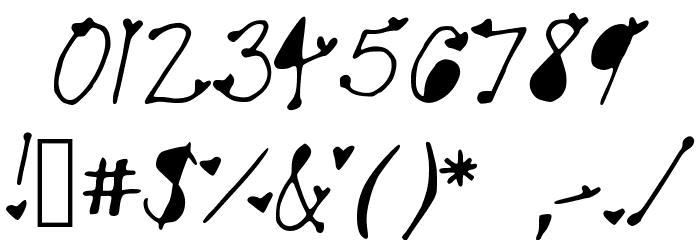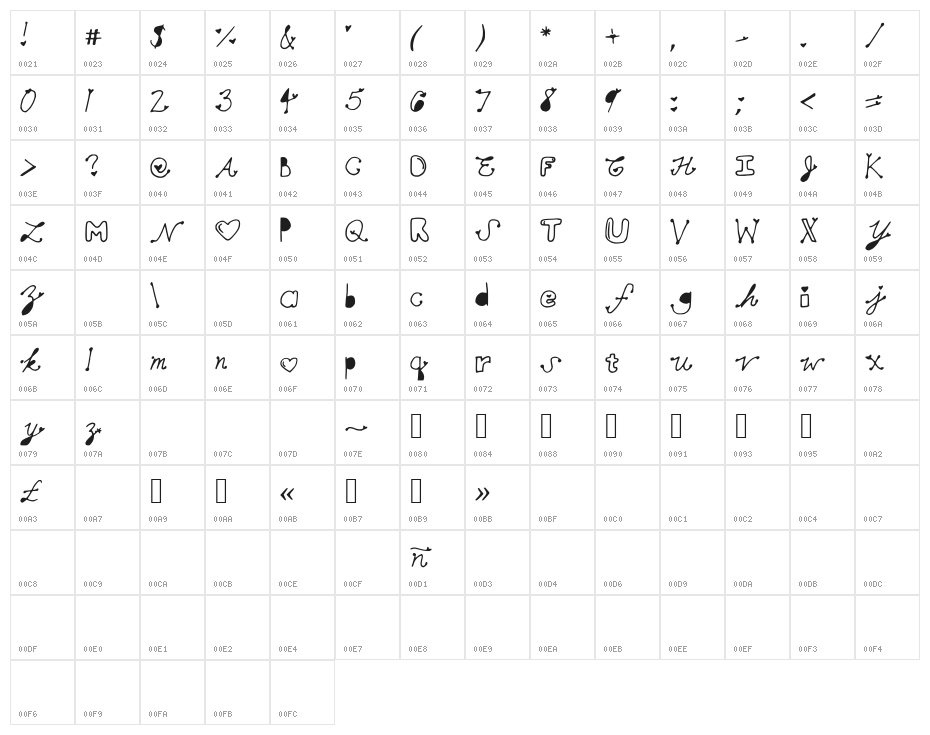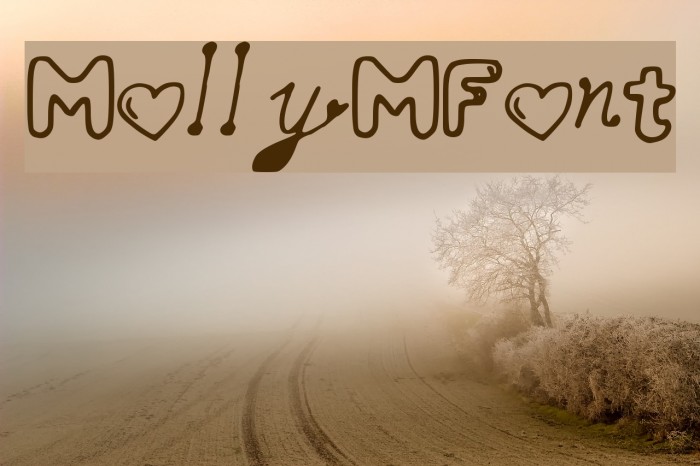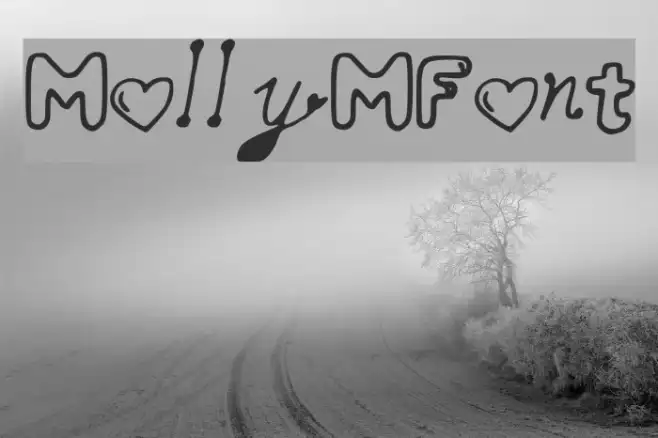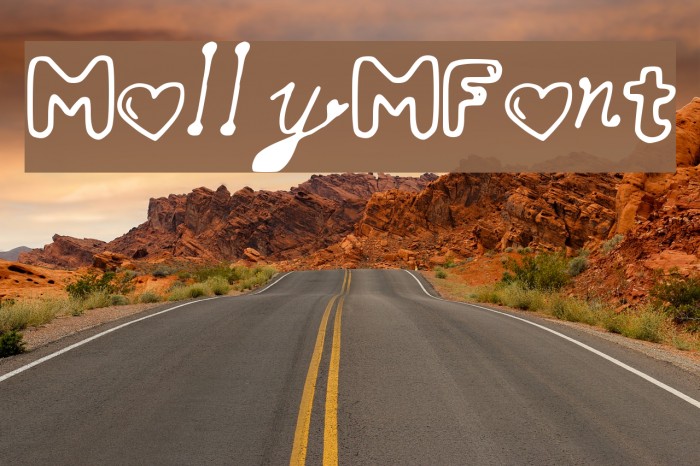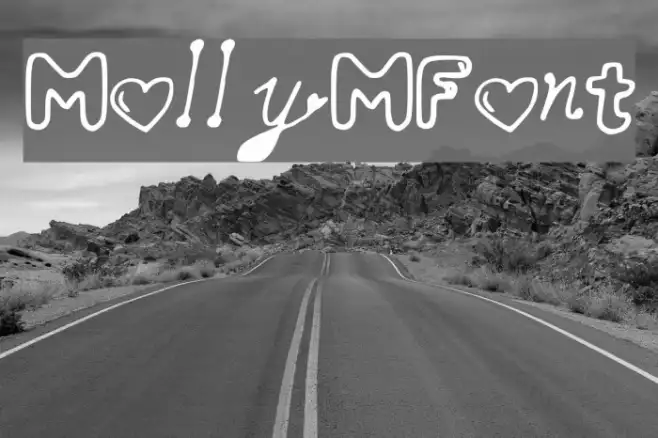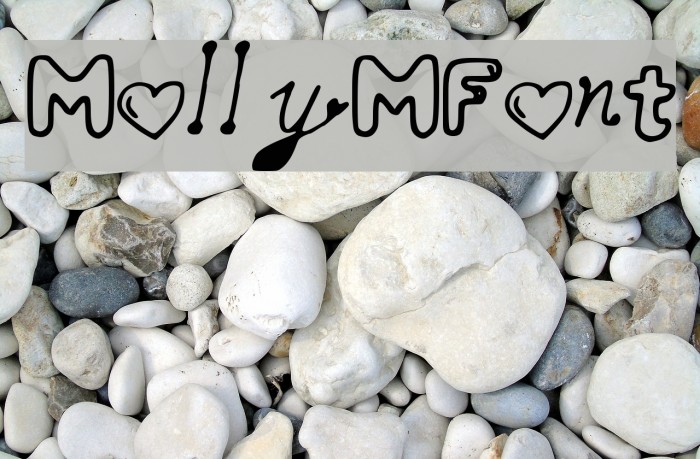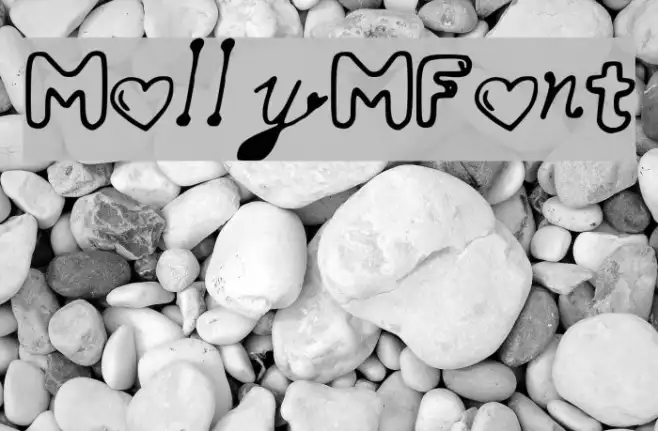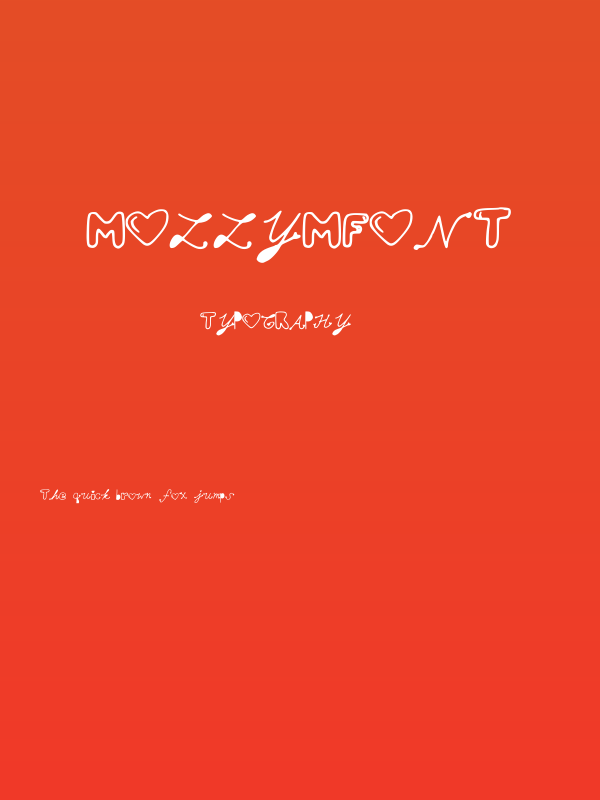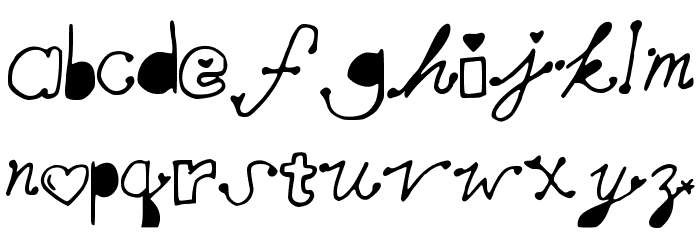
MollyMFont Font
MollyMFont Description
This playful and whimsical font features a unique blend of decorative elements and script-like qualities. Each character is infused with personality, incorporating heart shapes and varying stroke thicknesses that add a sense of fun and creativity. The uppercase letters are bold and distinct, while the lowercase letters maintain a charming, handwritten feel. Numbers and special characters follow the same playful theme, making this font ideal for projects that require a touch of whimsy and individuality.
Proposed ProjectsIdeal for greeting cards, children's book covers, playful branding, and creative invitations.